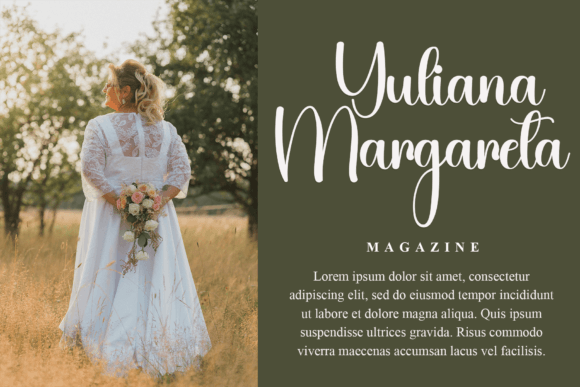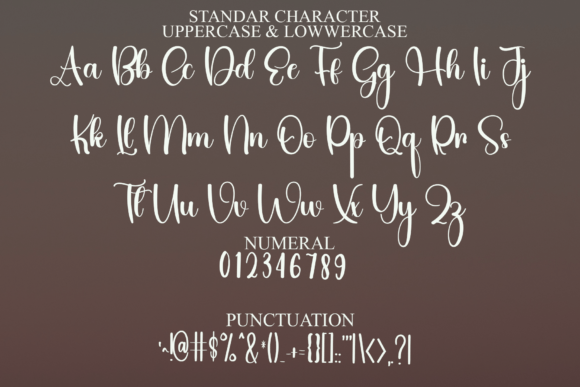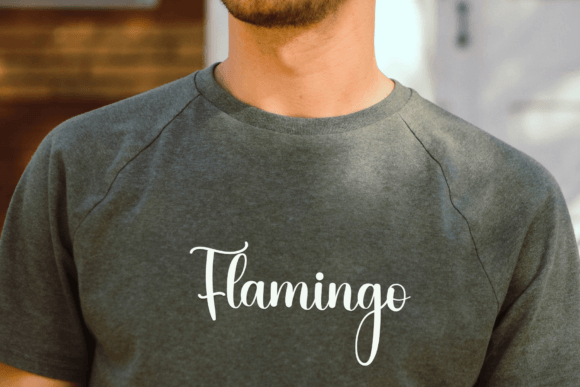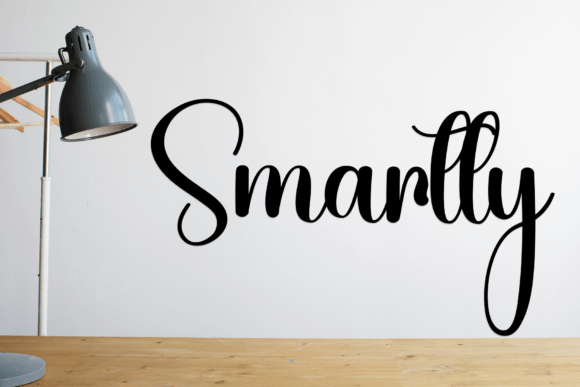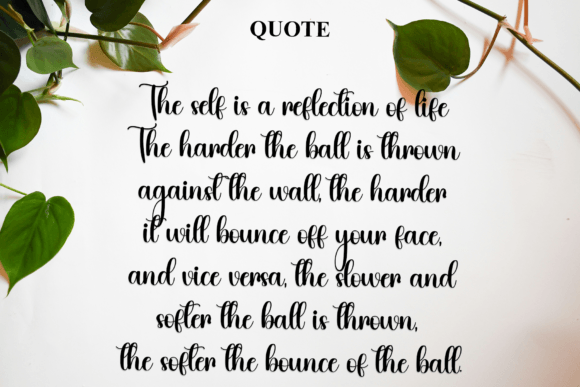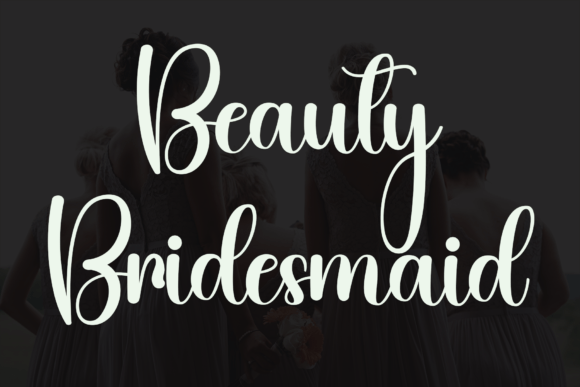
The Perfect Font for Your Special Day: Introducing Bridesmaid Font
As a designer, you know that the right font can make all the difference in bringing a project to life. Whether you’re creating a wedding invitation, a social media campaign, or a brand identity, the font you choose can set the tone for the entire design. I still remember the moment I stumbled upon the perfect font for a friend’s wedding invitation – it was love at first sight! The elegant strokes and natural flow of the font added a touch of sophistication and warmth to the design.
Bridesmaid Font is a stylish and versatile font that exudes elegance and charm. Its fluid strokes and natural flow create a captivating, sophisticated look that’s perfect for adding a personal touch to any design. As a designer, you’ll appreciate the value of having a font that can bring a sense of warmth and creativity to your projects. With Bridesmaid Font, you can create designs that are truly unforgettable.
Bridesmaid Font Key Features
- Unique Characteristics: The Bridesmaid Font features elegant, cursive script with swashes, making it ideal for wedding invitations, stationery, and other romantic designs.
Bridesmaid Font Review
I recently had the chance to work with the Bridesmaid Font, and I must say it’s a unique addition to any project. ✨ The font’s soft, elegant curves and delicate details are perfect for creating a whimsical or vintage feel.
Some of the things that work well with the Bridesmaid Font include:
- ✨ Beautiful script letters that add a touch of sophistication to any text
- ✨ Wide range of character sets, including numerals and punctuation
- ✨ Supports both uppercase and lowercase letters, making it versatile for various applications
However, I did encounter some limitations while working with the Bridesmaid Font:
- ⚠️ Limited font sizes and styles, which can be restrictive for some projects
- ⚠️ Some characters may not be legible at smaller font sizes or in certain contexts
- ⚠️ May not be suitable for use in digital signage or other high-contrast applications
Overall, the Bridesmaid Font is a lovely addition to any project that requires a touch of elegance and whimsy. While it has its limitations, it’s a great choice for wedding invitations, wedding decorations, and other projects that call for a vintage or romantic feel.
The Bridesmaid Font is perfect for:
- Bridal shower invitations
- Wedding programs
- Baby shower invitations
- Anniversary party invitations